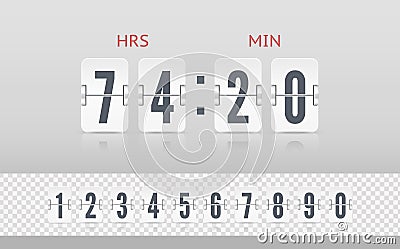
Vintage flip clock time counter vector template. Retro design score board clock. White scoreboard countdown number font #215392670
Vintage flip clock time counter vector template. Retro design score board clock template. White scoreboard countdown number font with reflections isolated on light background.